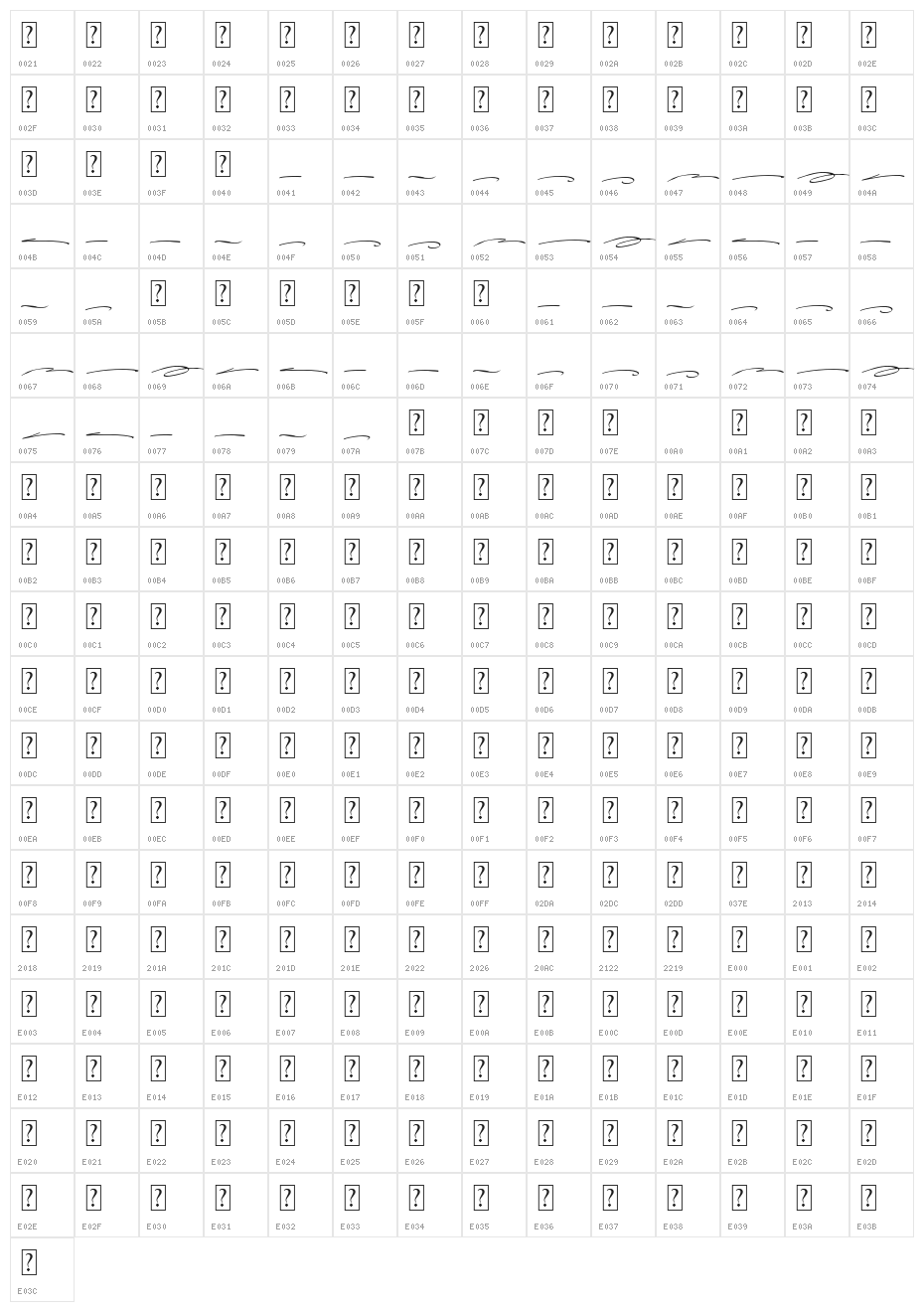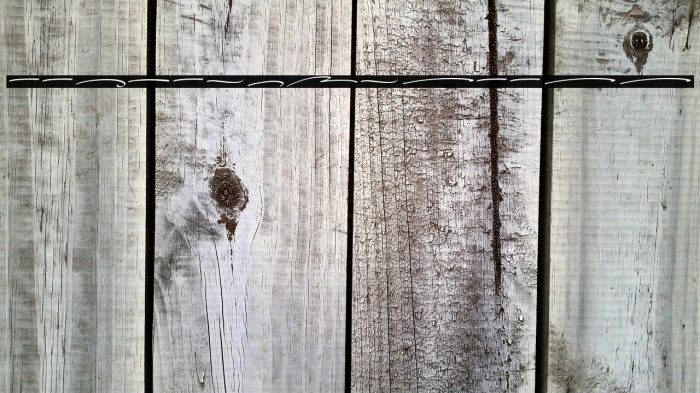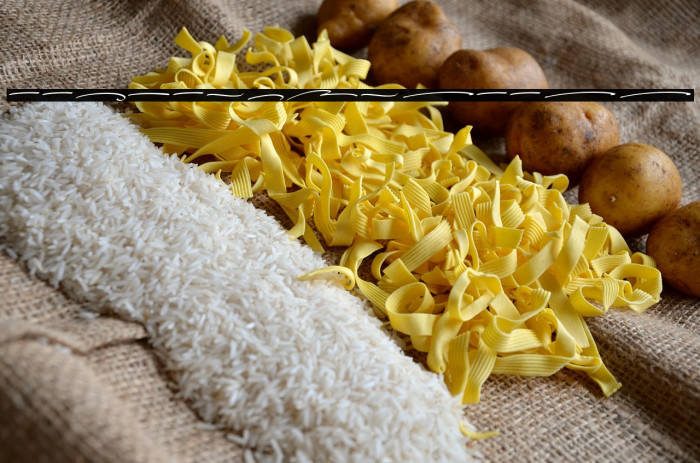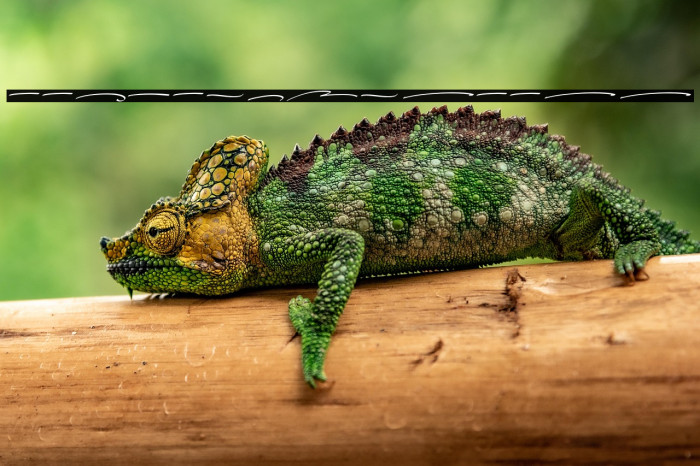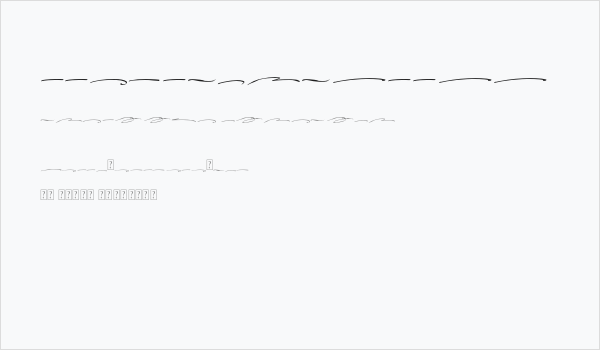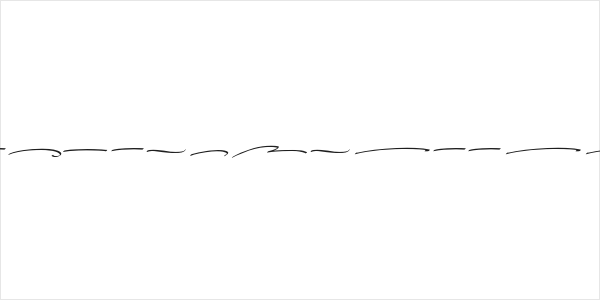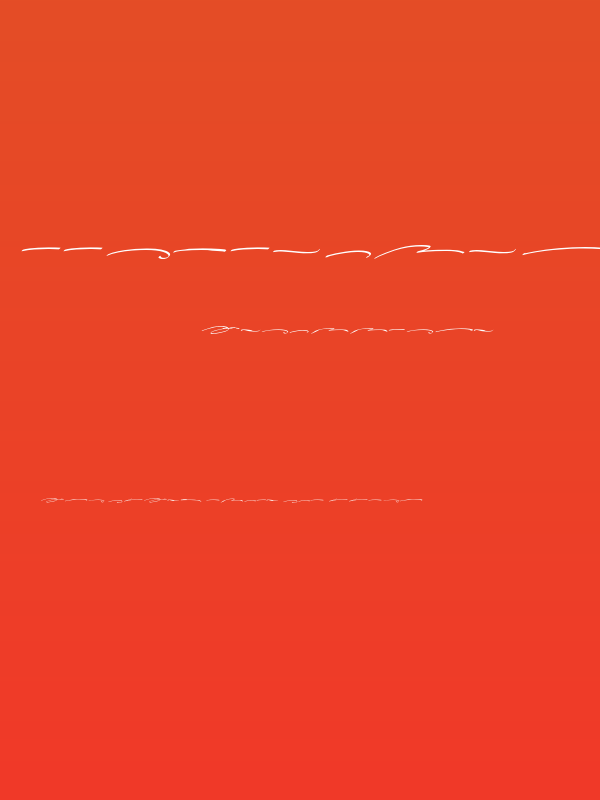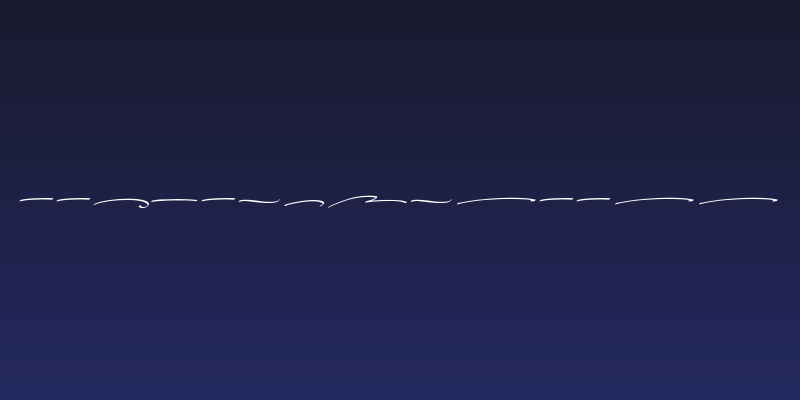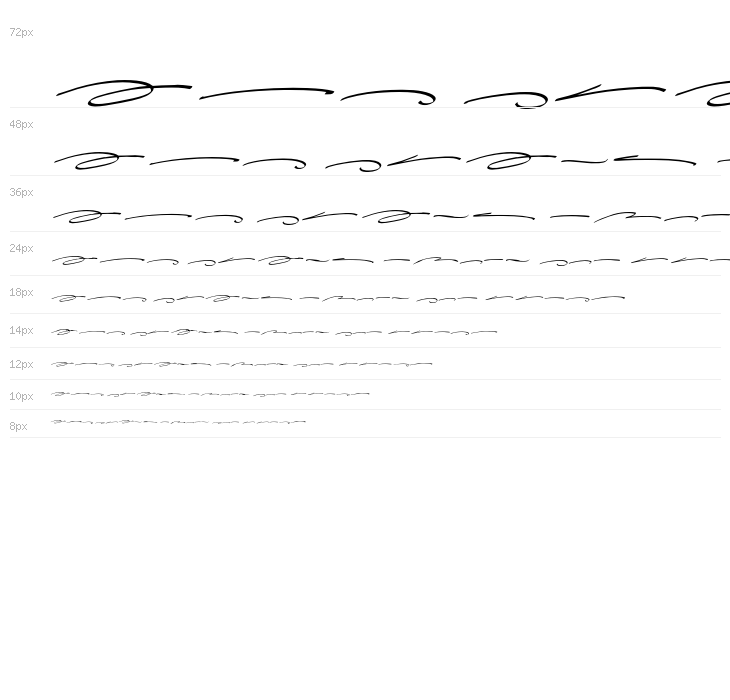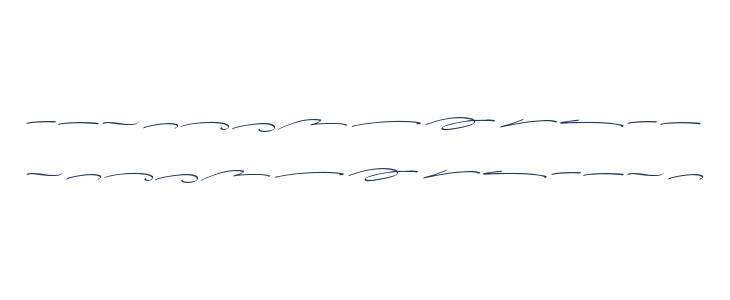
AlexandrySwash Font
AlexandrySwash Description
This font is characterized by its elegant and flowing swashes, creating a sense of sophistication and grace. The lines are smooth and continuous, with decorative flourishes that add a touch of artistry. The overall appearance is reminiscent of classic calligraphy, with a modern twist that makes it suitable for contemporary designs. The font's intricate details and stylish curves make it ideal for projects that require a touch of elegance and refinement. Its unique style can enhance invitations, branding materials, and other creative projects that benefit from a decorative and artistic touch.
| Proposed Projects | Ideal for wedding invitations, branding, logos, and artistic projects requiring elegance. |